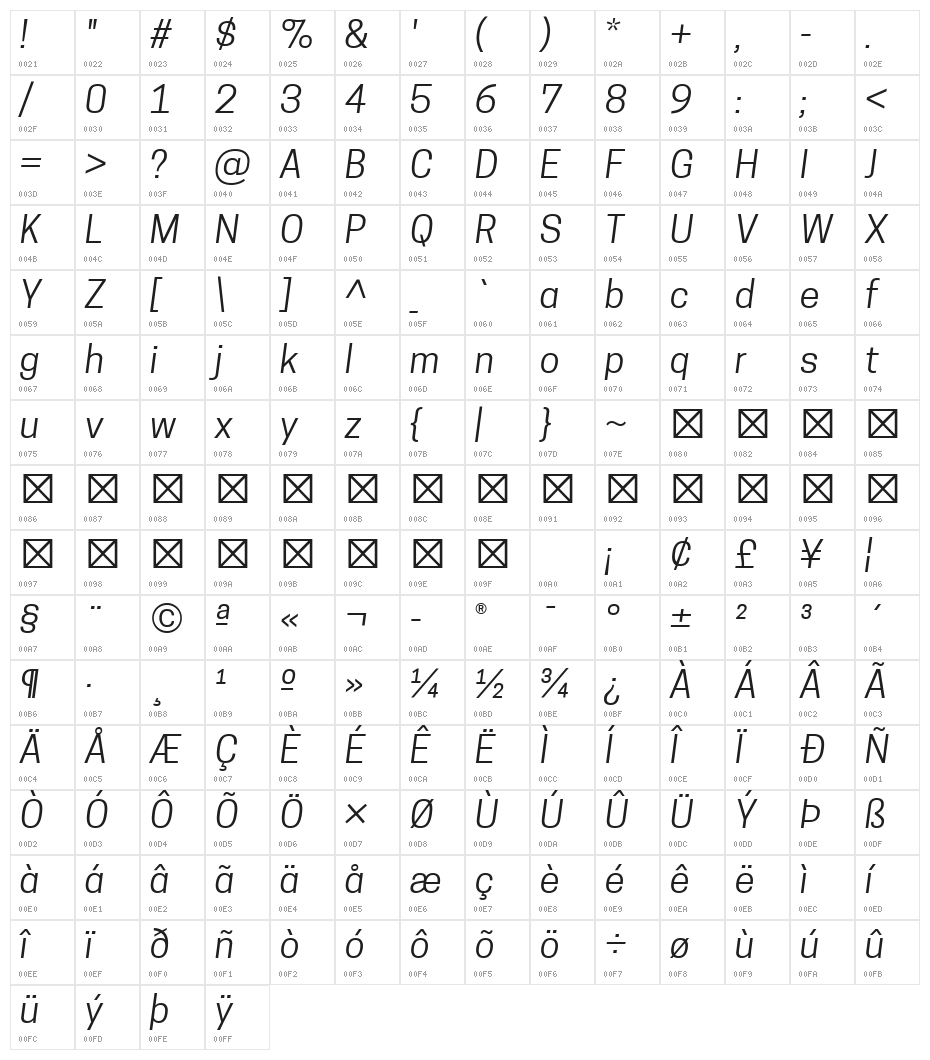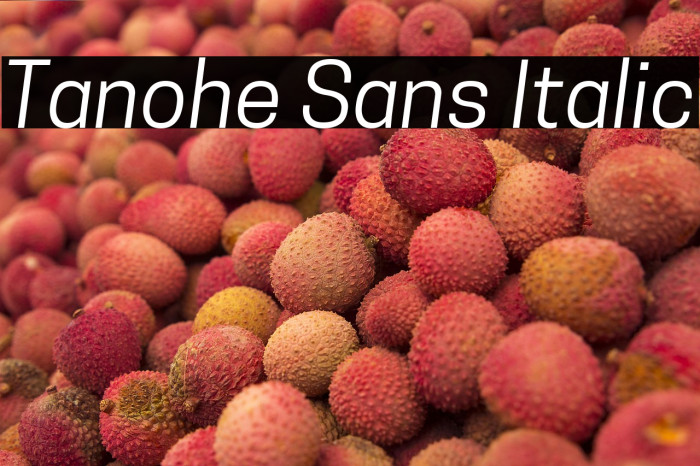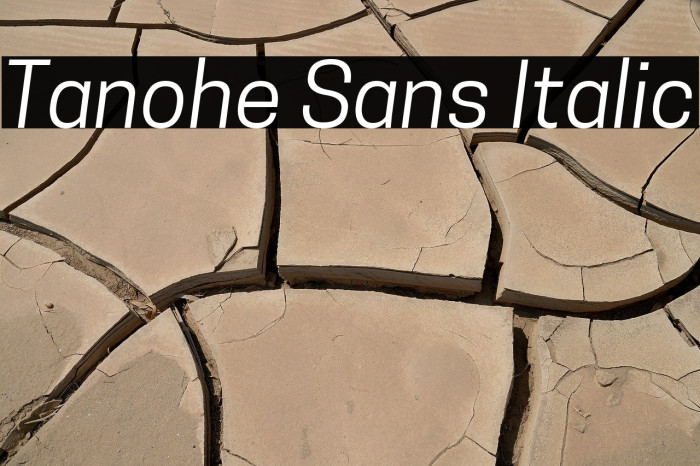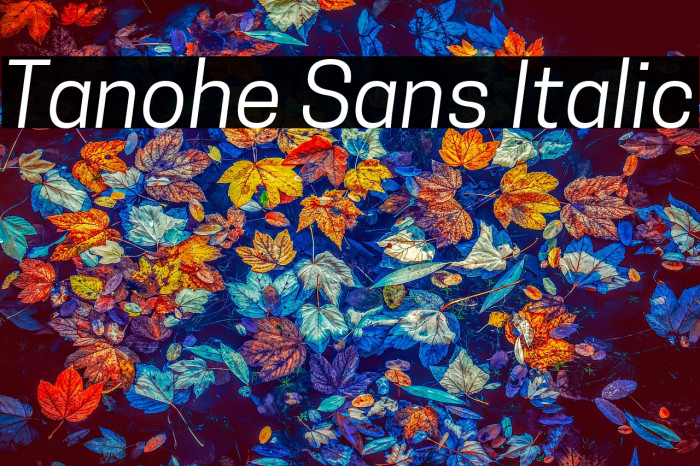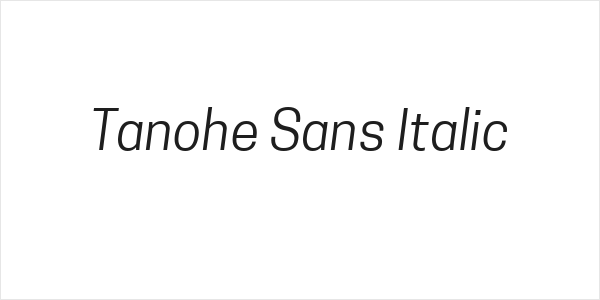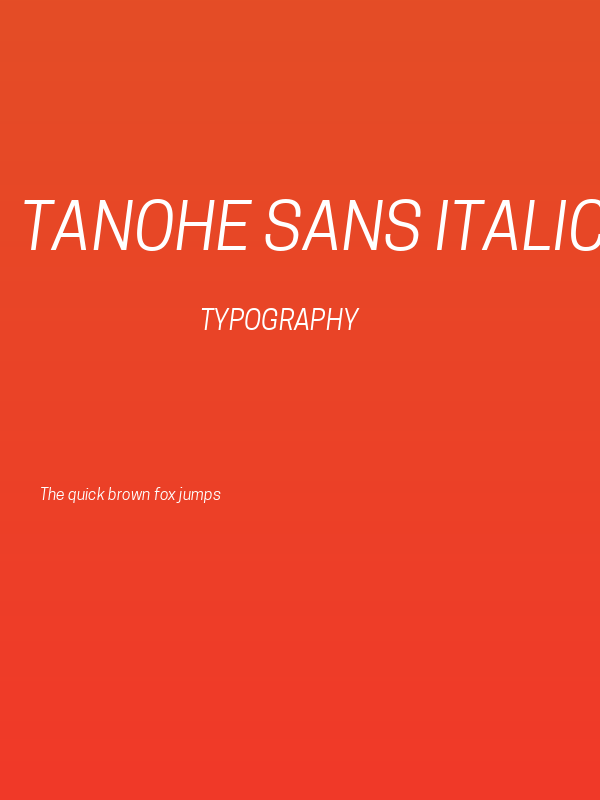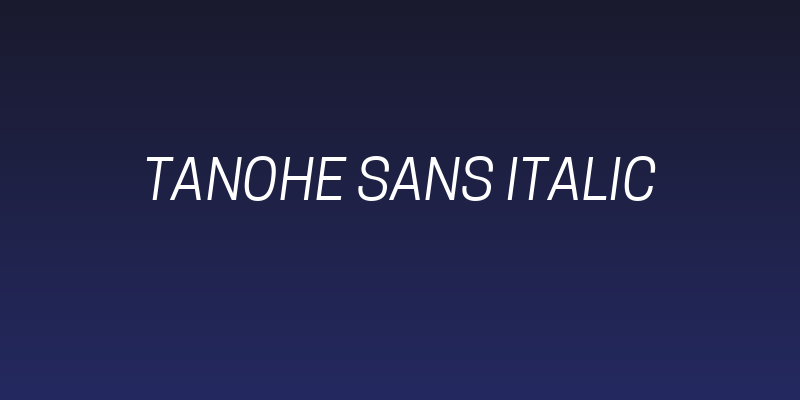
Tanohe Sans Italic Font
Tanohe Sans Italic Description
This font features a sleek and modern design with clean lines and a slight slant, giving it an italicized appearance. The characters are evenly spaced, providing a balanced and harmonious look. The uppercase and lowercase letters are well-proportioned, with a consistent stroke width that adds to its readability. The numerals are clear and distinct, making them easy to read. Special characters are included, maintaining the font's cohesive style. This font is versatile and can be used in various design projects, offering a contemporary and professional feel.
| Proposed Projects | Ideal for branding, editorial design, websites, and advertising materials. |